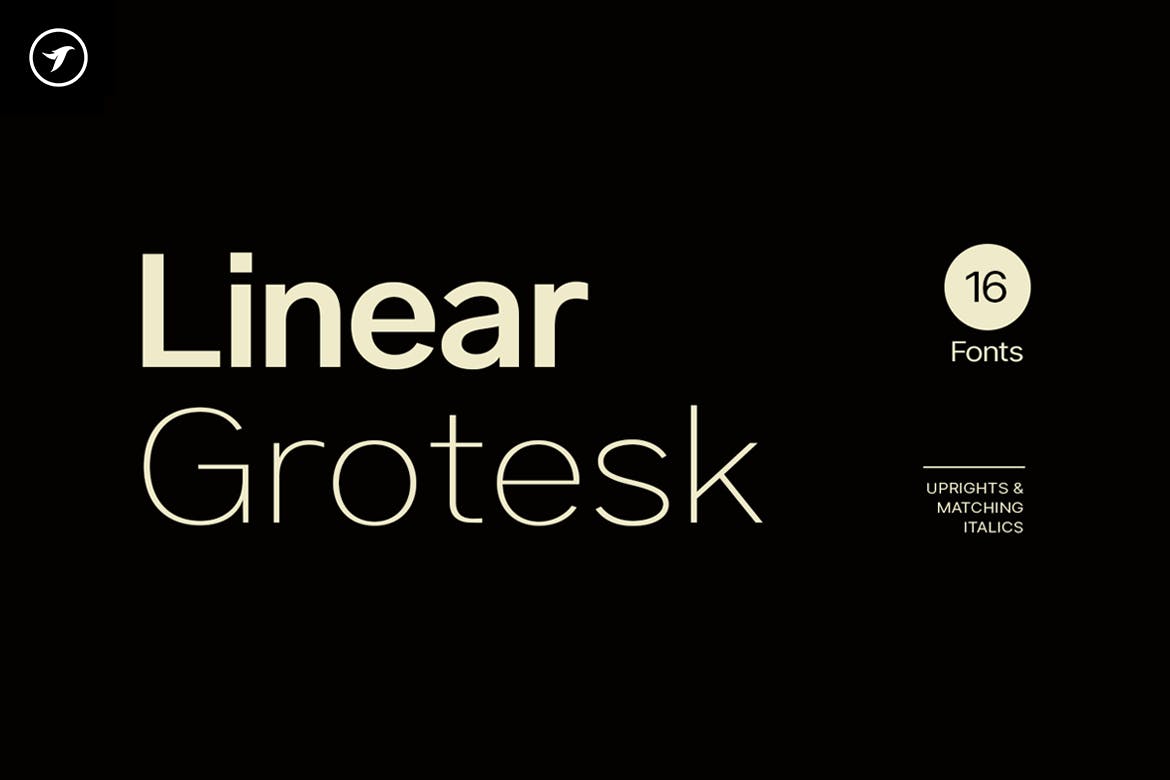
Linear Grotesk - Modern Sans-Serif Font Family
Linear Grotesk - Modern Sans-Serif Font Family excels in minimalist branding projects, contemporary web design, architectural presentations, tech startup identity, modern editorial layouts, clean user interface design, corporate communications, progressive advertising campaigns, and systematic design applications.
What makes Linear Grotesk - Modern Sans-Serif Font Family exciting is its perfect synthesis of historical grotesk tradition with cutting-edge contemporary design principles. This exceptional typeface features meticulously refined letterforms with consistent optical weights, precise geometric construction, and subtle humanist touches that create maximum clarity and impact. The font's rational structure and clean aesthetic embody modern design philosophy while maintaining the timeless functionality that makes grotesk typefaces enduringly popular across diverse applications and industries.
Linear Grotesk - Modern Sans-Serif Font Family includes comprehensive weight variations: Hairline, Thin, ExtraLight, Light, Regular, Medium, SemiBold, Bold, ExtraBold, and Black, each available in both standard and oblique styles. This extensive collection provides 20 meticulously crafted fonts that enable designers to create sophisticated typographic systems with precise control over visual hierarchy and brand expression.
Design professionals choose Linear Grotesk - Modern Sans-Serif Font Family for its exceptional versatility and technical excellence. The font's balanced proportions and optimized spacing work beautifully in both micro-typography and large-scale environmental graphics. Its neutral character allows content to communicate clearly while maintaining distinctive personality.
Whether used for cutting-edge startup branding or established institutional communications, Linear Grotesk - Modern Sans-Serif Font Family consistently delivers superior typography that combines functional excellence with contemporary sophistication and timeless design integrity.